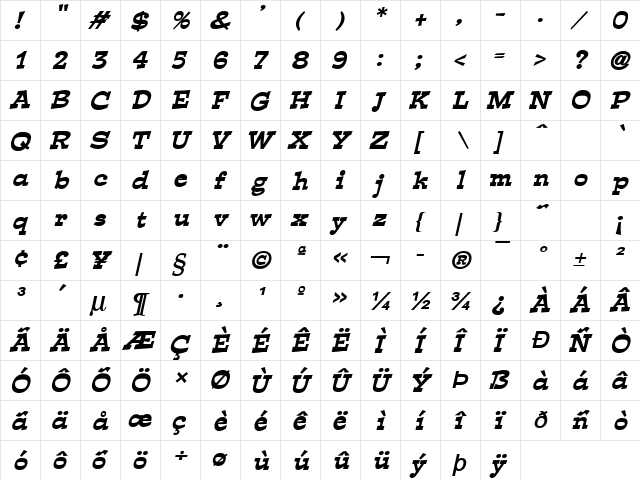
Cartoonist 2 BoldItalic
Design Context for Cartoonist 2 Typeface
Cartoonist 2 trades formality for fun, with bouncy, characterful letterforms that bring warmth and energy to any project. Its italic angle brings a sense of urgency and motion to the letterforms.
Font Pairing: Pairs well with a rounded or humanist sans for body copy, maintaining the friendly tone without relying on Cartoonist 2 to carry extended reading.
Pro Tip: Avoid using Cartoonist 2 for long passages of text — it works best for headlines, labels, and short calls to action.